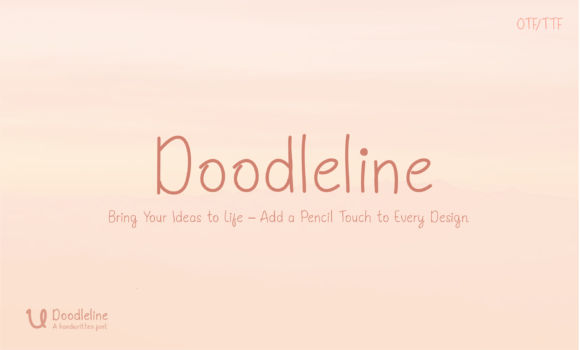
Bring Your Designs to Life with the Doodleline Font
Remember the thrill of creating with a pencil, the feel of graphite on paper, and the joy of watching your ideas come to life? That’s exactly the magic you can capture with the Doodleline Font – a beautiful, pencil-inspired typeface designed to add a touch of handcrafted charm to your designs.
This versatile font family is perfect for designers seeking to infuse their work with a warm, authentic aesthetic. With six expressive weights to choose from, you can effortlessly create everything from subtle accents to bold, eye-catching headlines. Whether you’re building a brand, designing illustrations, or styling social media content, the Doodleline Font is the ideal companion for your creative endeavors.
With the Doodleline Font, you can unlock a world of creative possibilities and bring your designs to life with elegance, authenticity, and visual captivation.
Doodleline Font Key Features
- Unique Characteristics: Doodleline Font boasts a distinctive, hand-drawn style with irregular lines and subtle imperfections, giving it a charming, artistic feel.
- Font Weight and Style: The font offers various weights, from Light to Bold, as well as an Italic style, allowing for a range of creative expressions.
Doodleline Font Review
As a designer, I was excited to dive into the world of Doodleline Font. Overall, I think this font has some great qualities that make it a solid choice for certain projects.
- Unique Hand-Drawn Style: Doodleline Font’s hand-drawn style gives it a charming, one-of-a-kind feel that can add a touch of whimsy to designs.
- Highly Versatile: This font is suitable for a wide range of projects, from children’s books to fashion branding, and everything in between.
- Good for Display Text: Doodleline Font shines when used for display text, making it perfect for headings, titles, and other prominent text elements.
- Limited Legibility: Due to its hand-drawn nature, Doodleline Font can be difficult to read at smaller font sizes, which may limit its use in body text.
- Not Ideal for Long Text: The font’s unique style can become overwhelming when used for extended periods of text, making it better suited for short paragraphs or quotes.
- No Language Support: Doodleline Font may not support all languages, which could be a concern for projects that require multilingual text.
Overall, I think Doodleline Font is a solid addition to any designer’s toolkit, but it’s essential to use it thoughtfully and in the right context. With its unique style and high versatility, it can add a touch of personality to designs, but its limitations should be considered when choosing a font for body text or long paragraphs.
Getting the Most Out of Doodleline Font
To get the most out of Doodleline font, try the following tips:
- Combine Doodleline font with other creative fonts for a visually appealing effect.
- Use Doodleline font for titles, headings, and emphasis to draw attention to important text.
The Doodleline font is perfect